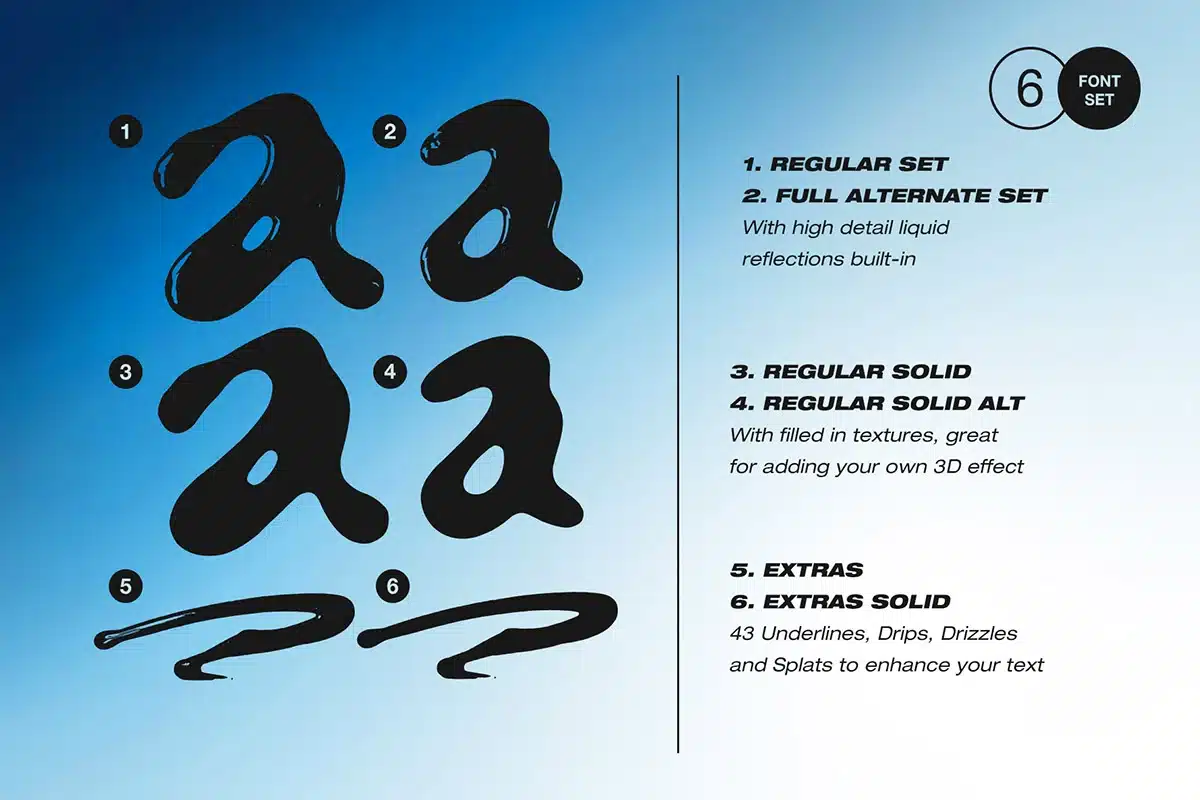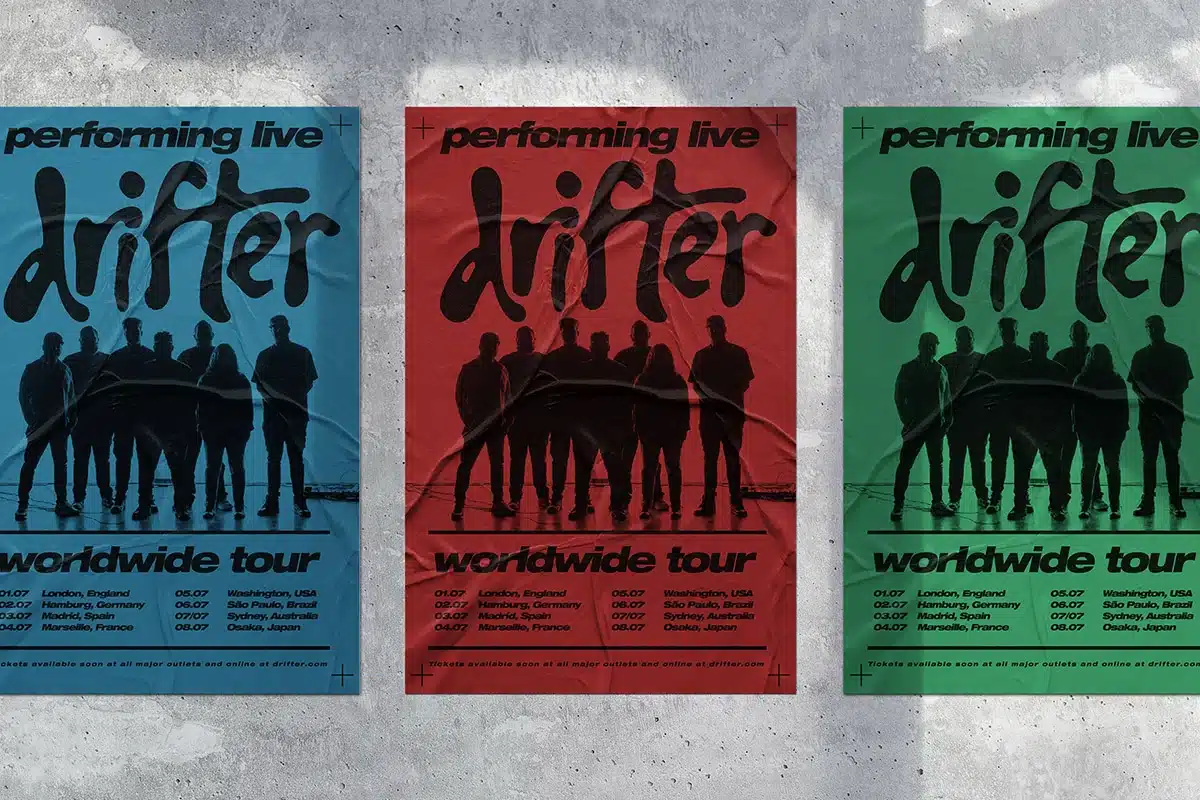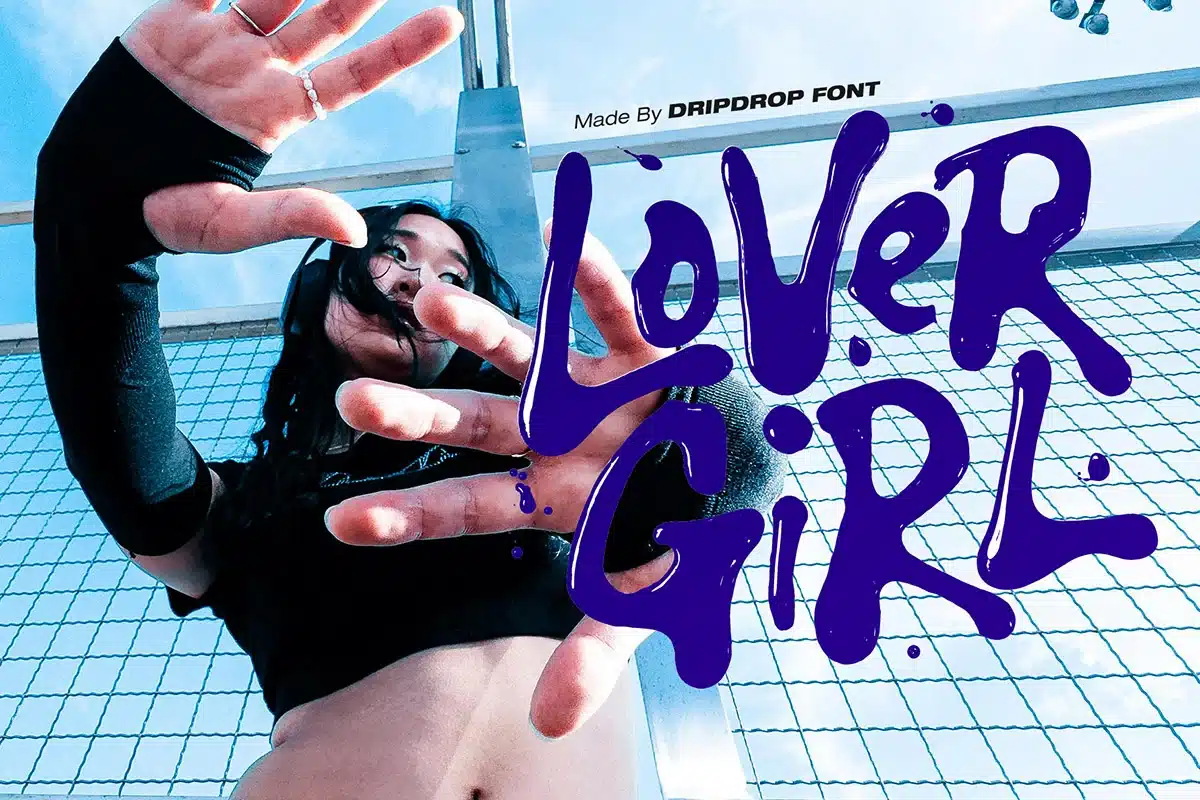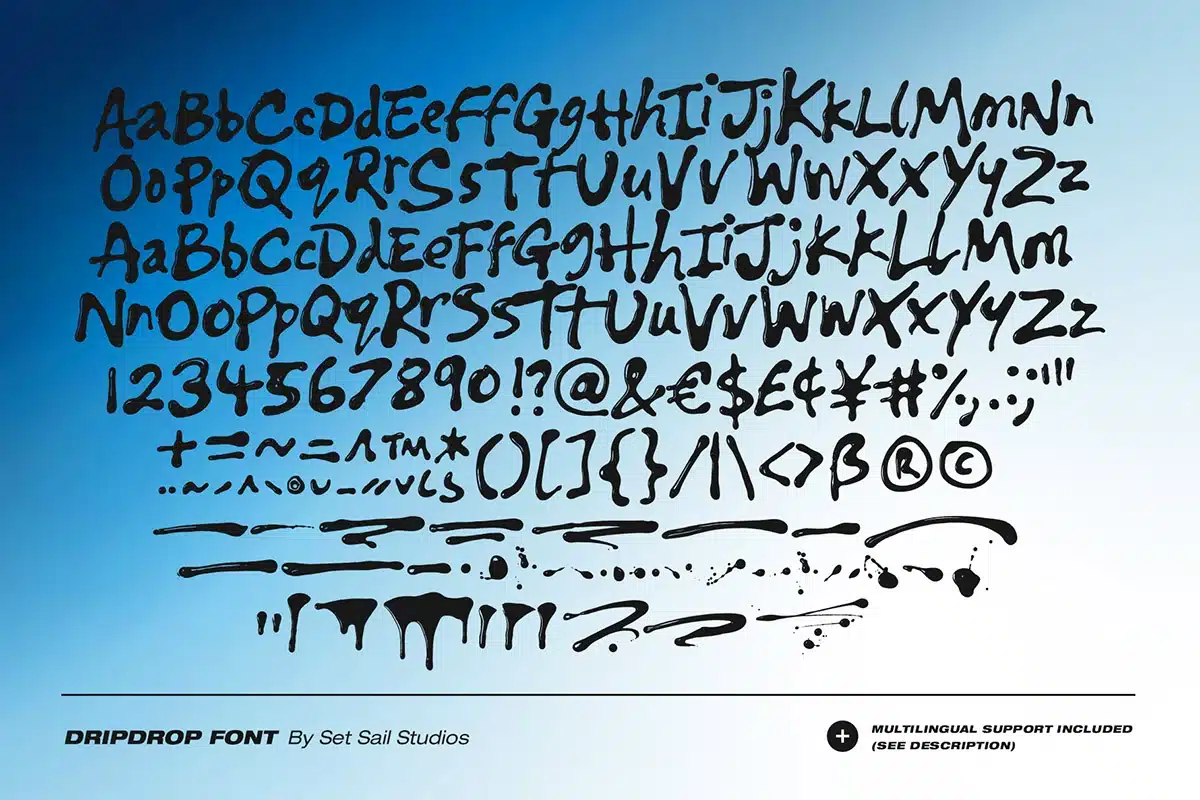
Dripdrop Liquid Font Set
Make a splash with the Dripdrop Liquid Font Set! Crafted by hand with real squirts of liquid ink (yes, it was messy!), this set of 6 fonts captures the spontaneous beauty of drips, drizzles and splats, giving every letter a personality of its own. It’s a display font ideal for edgy designs, Y2K inspired graphics, rebellious branding, or anything that needs a touch of the unpredictable.
Dripdrop Font • A liquid font with built-in realistic light reflections. Hand made with real ink on paper! Includes a full set of uppercase, lowercase, numerals and punctuation.
Dripdrop Alt Font • This is a second version of the Dripdrop font, with a completely new set of upper & lowercase characters. If you wanted to avoid letters looking the same each time to recreate a custom-made style, or try a different word shape, simply switch to this font for an additional layout option.
Dripdrop Extras Font • A set of 43 underlines, drips, drizzles and splats to enhance your DripDrop text. Simply install this as it’s own font, and type any A-W or a-t letter in this font to generate the extras.
Dripdrop Solid, Dripdrop Alt Solid & Dripdrop Extras Solid• These 3 fonts are the same as above however they have solid textures with no light reflections. Great if you need something a bit more subtle, or for adding your own textures (ideal for 3D rendering!)